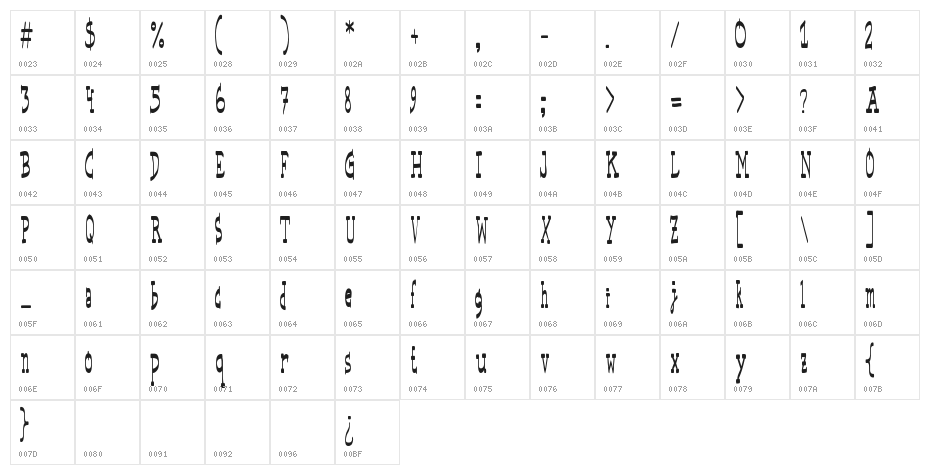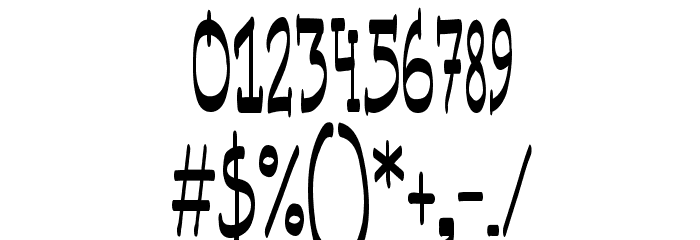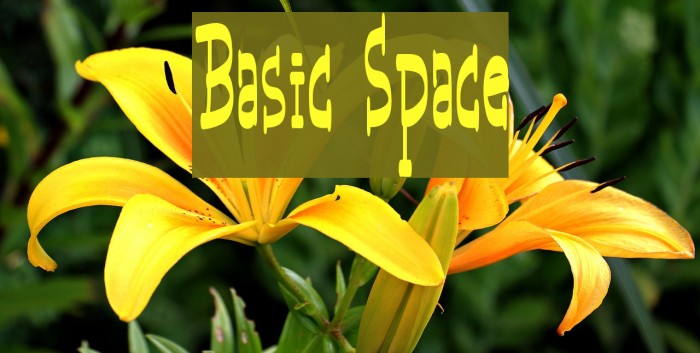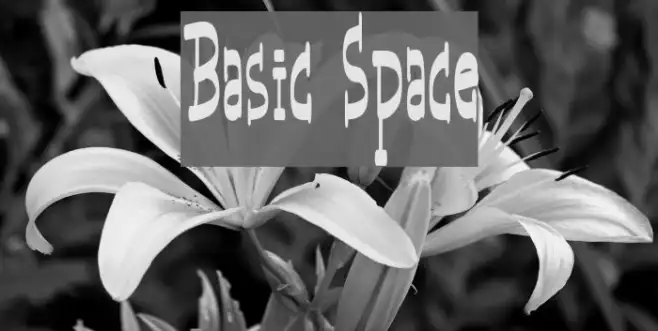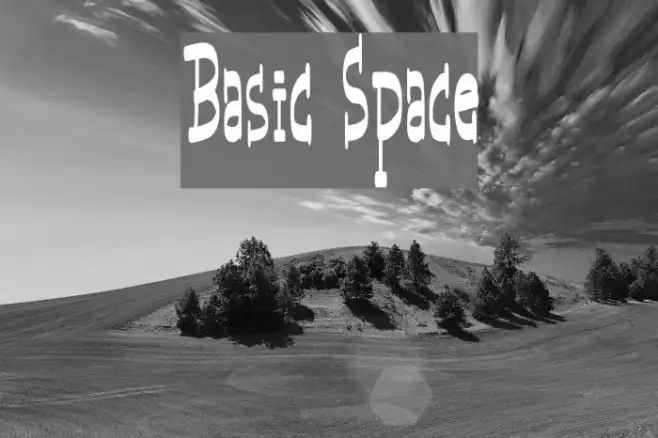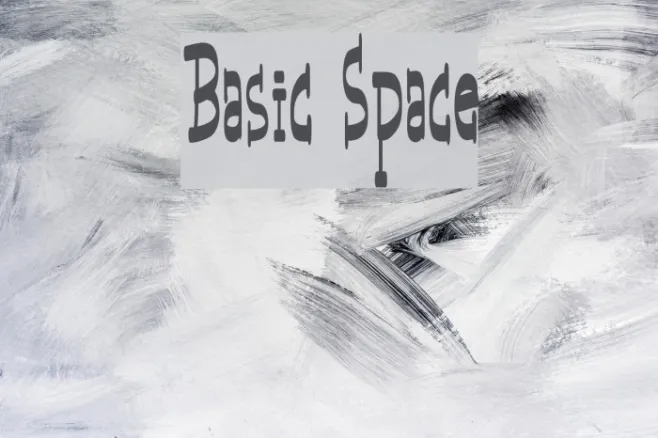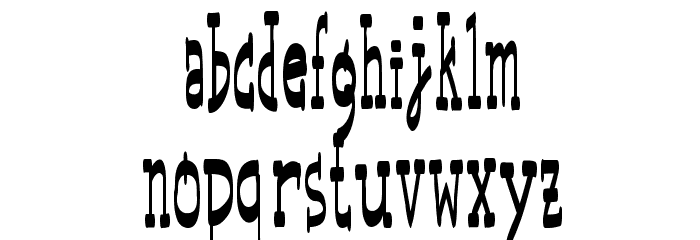
Basic Space Font
Basic Space Description
This font features a playful and quirky design with a handwritten feel. The characters have a slightly uneven baseline, adding to its casual and informal appearance. The strokes are bold and rounded, providing a friendly and approachable look. The uppercase and lowercase letters maintain a consistent style, with some characters exhibiting unique flourishes, such as the looped 'g' and the curved 'y'. The numerals are clear and legible, matching the overall style of the alphabet. Special characters are included, maintaining the same whimsical design. This font is ideal for projects that require a fun and engaging aesthetic.
| Proposed Projects | Ideal for children's books, greeting cards, playful branding, and casual invitations. |